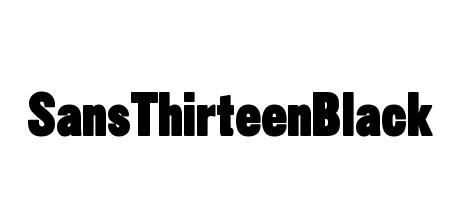
SansThirteenBlack
SansThirteenBlack: A bold, sans-serif font exuding power and confidence. Its stark, black strokes command attention, ideal for headlines demanding immediate impact. A touch of mystery lingers in its stark simplicity, perfect for edgy branding or impactful titles. Its clean lines offer readability, even at large sizes.